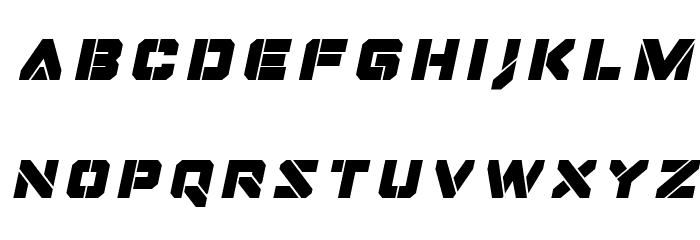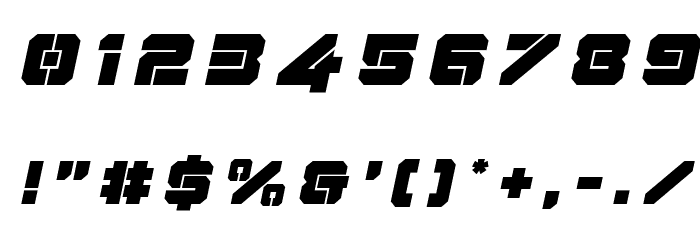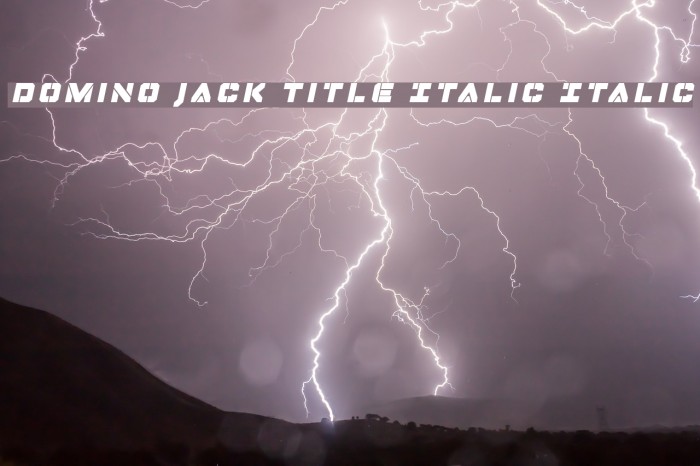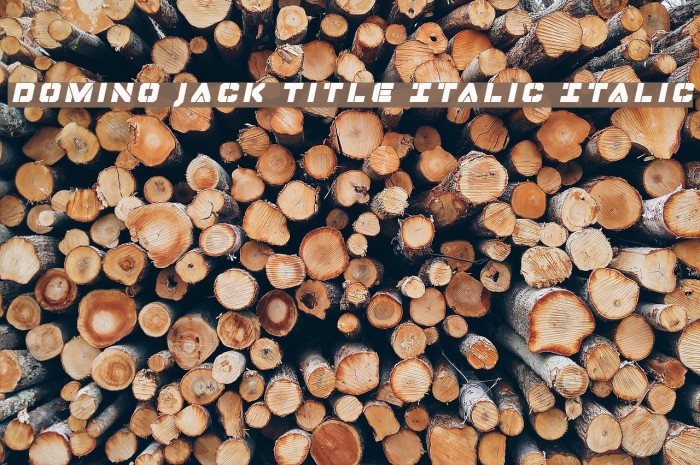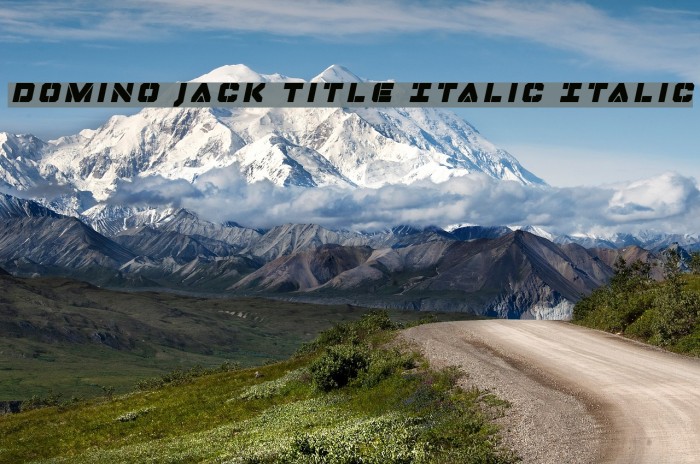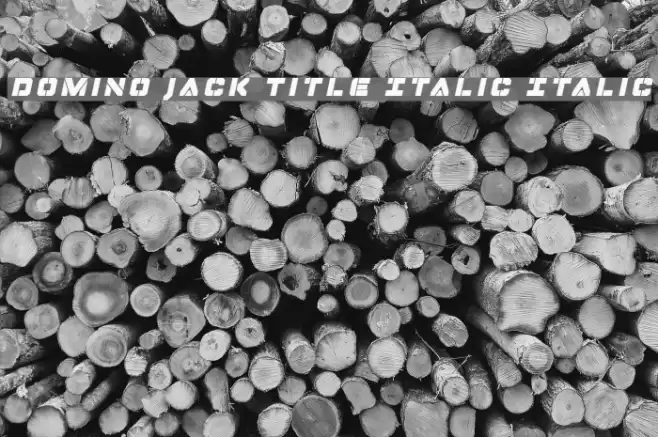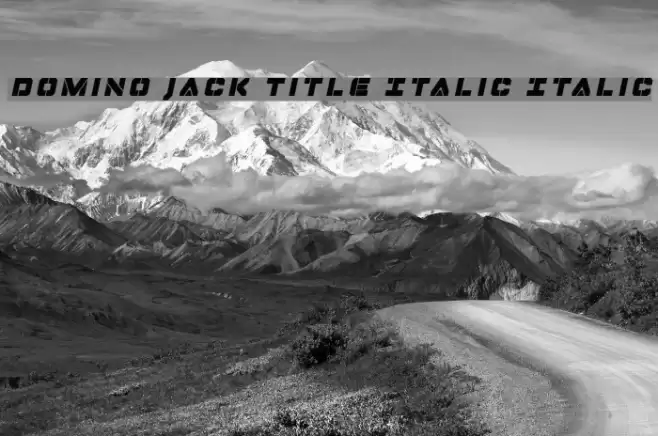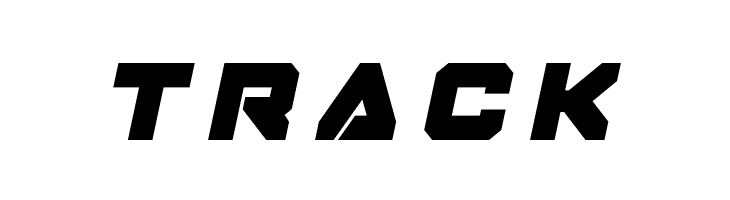
Domino Jack Title Italic Italic Font
This font features a bold and dynamic style with a strong geometric influence. The characters are italicized, giving them a forward-leaning, energetic appearance. Each letter is constructed with sharp angles and straight lines, creating a sense of movement and modernity. The font has a distinct, futuristic feel, making it suitable for projects that require a bold statement. The numbers and special characters maintain the same angular design, ensuring consistency across all glyphs.
A bold, italicized geometric font with a futuristic style.
- Proposed Projects: Ideal for use in video game titles, sci-fi movie posters, technology branding, and sports team logos.
- Overall Style: Futuristic, Modern